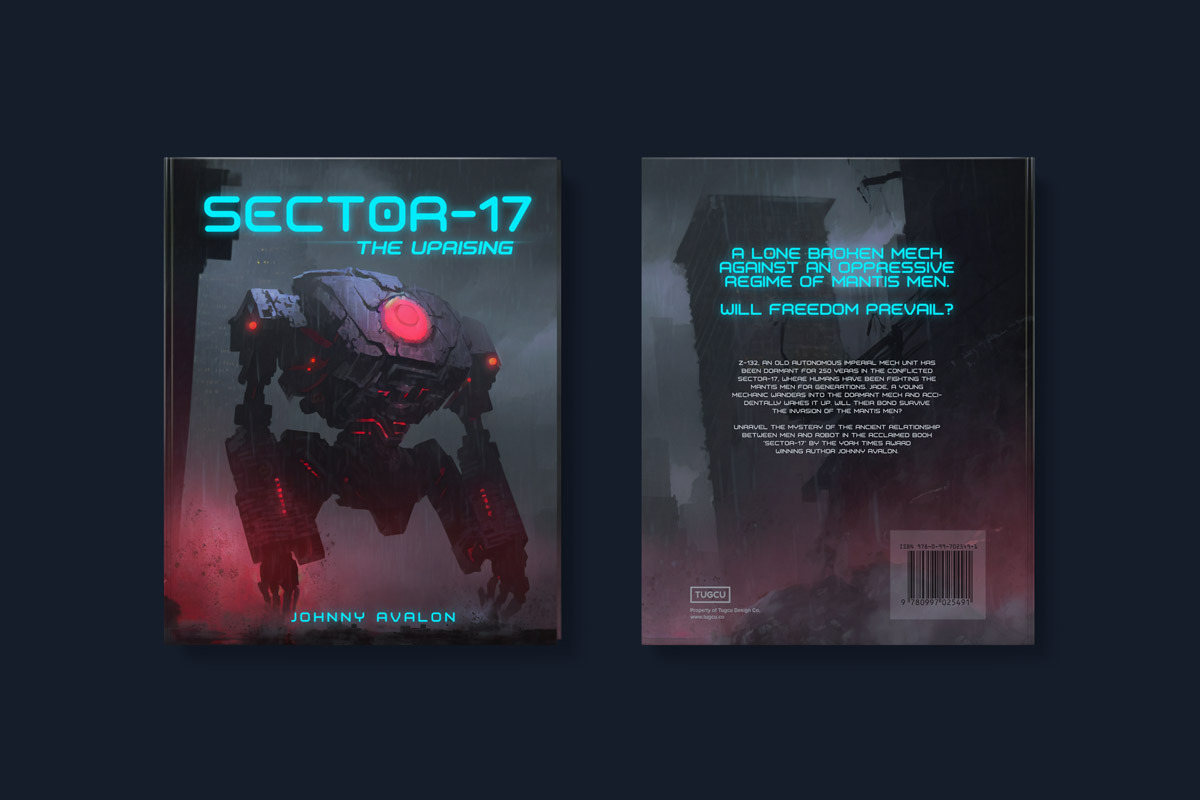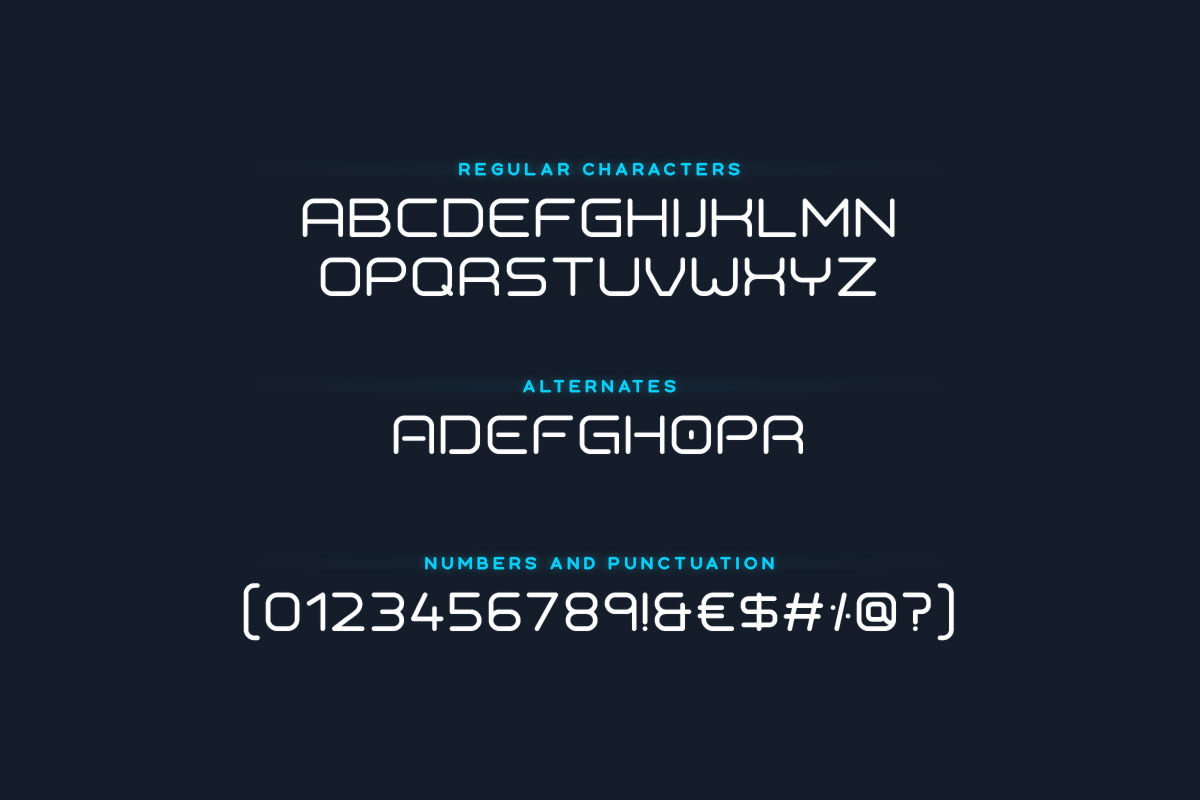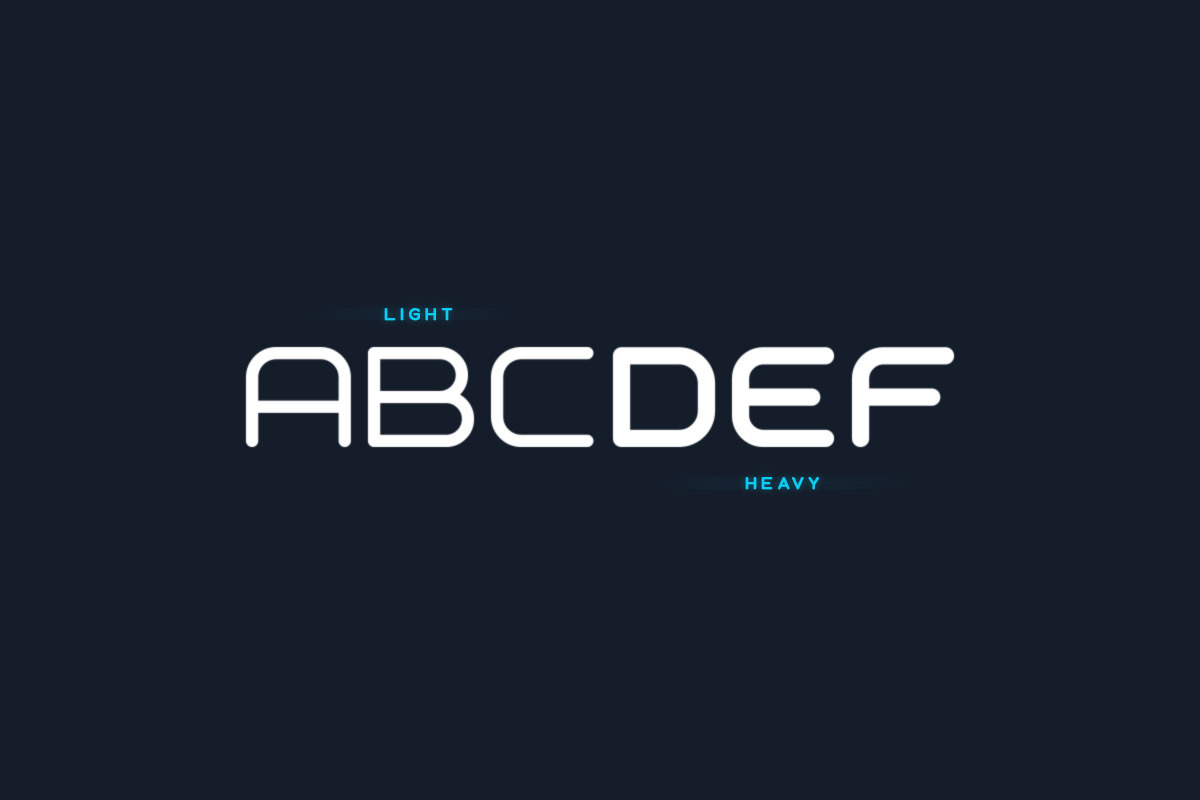
Voyager Typeface
Voyager Typeface by Tugcu Design Co. is a font selected for branding, posters, packaging, typography.
- Voyager comes with alternate characters that can be toggled with caps lock and includes 2 weight options.
- The font family includes uppercase characters, numbers, punctuation and some multilingual support.
- Voyager Light
- Voyager Heavy
Why Voyager Typeface is worth a look
Voyager Typeface by Tugcu Design Co. fits naturally into Branding, posters, packaging, typography.